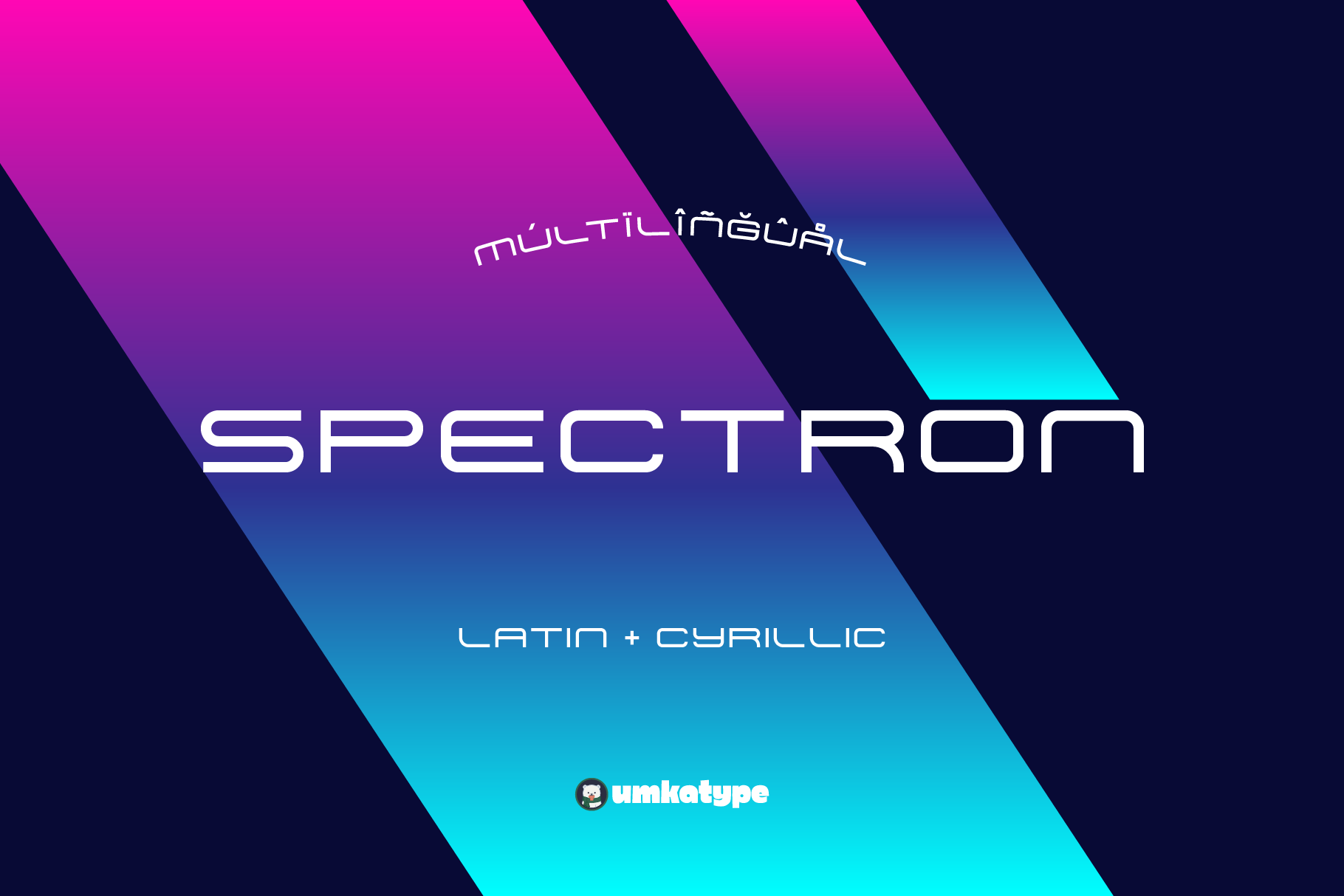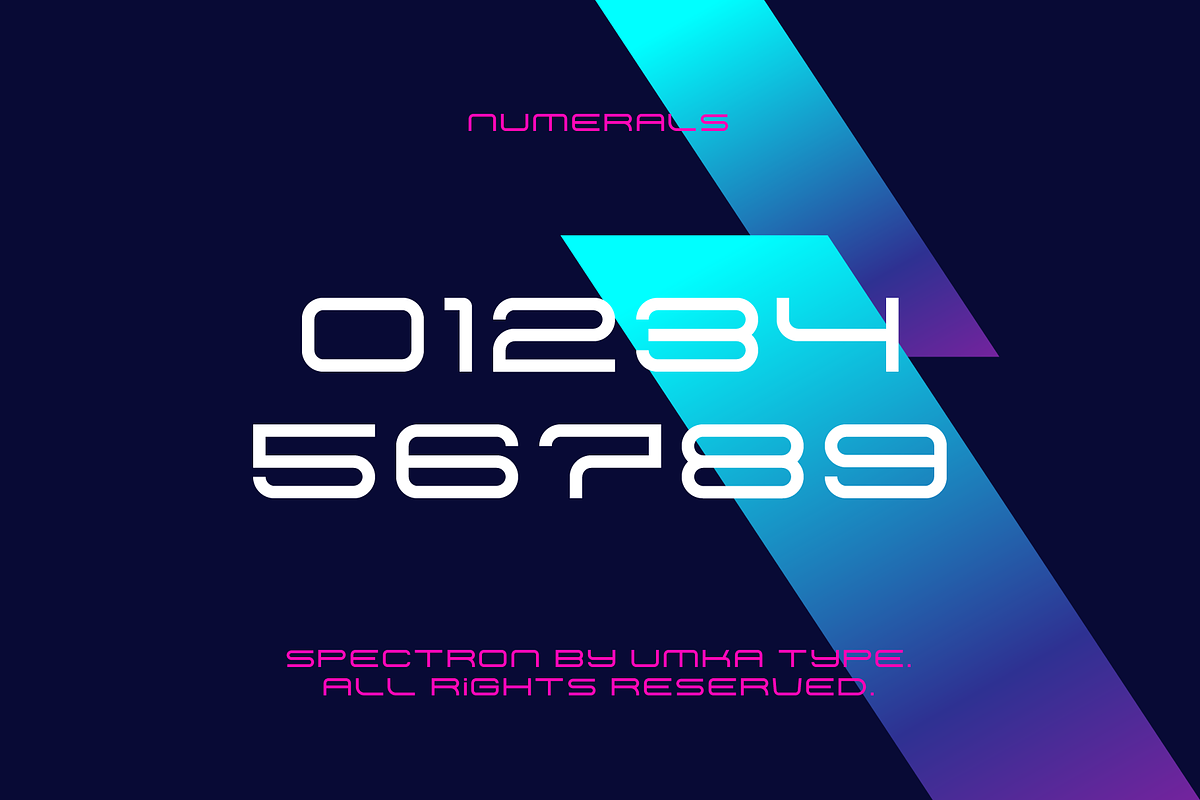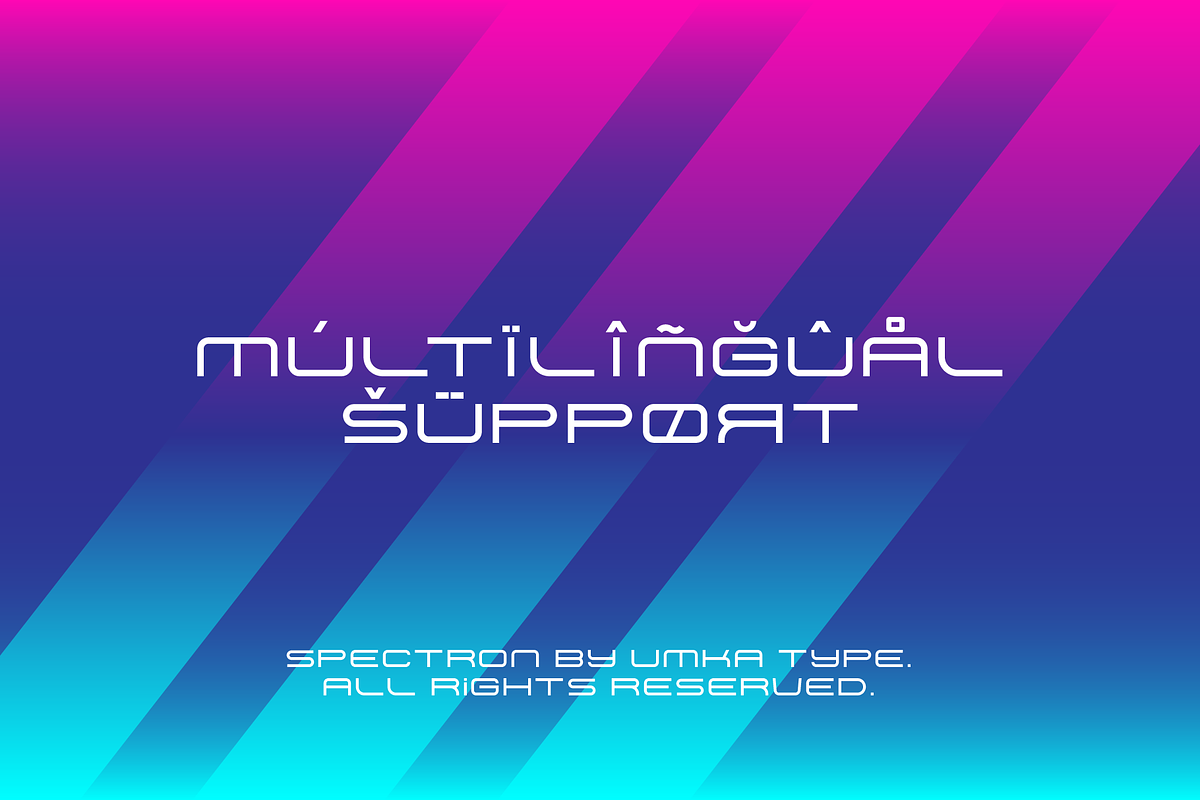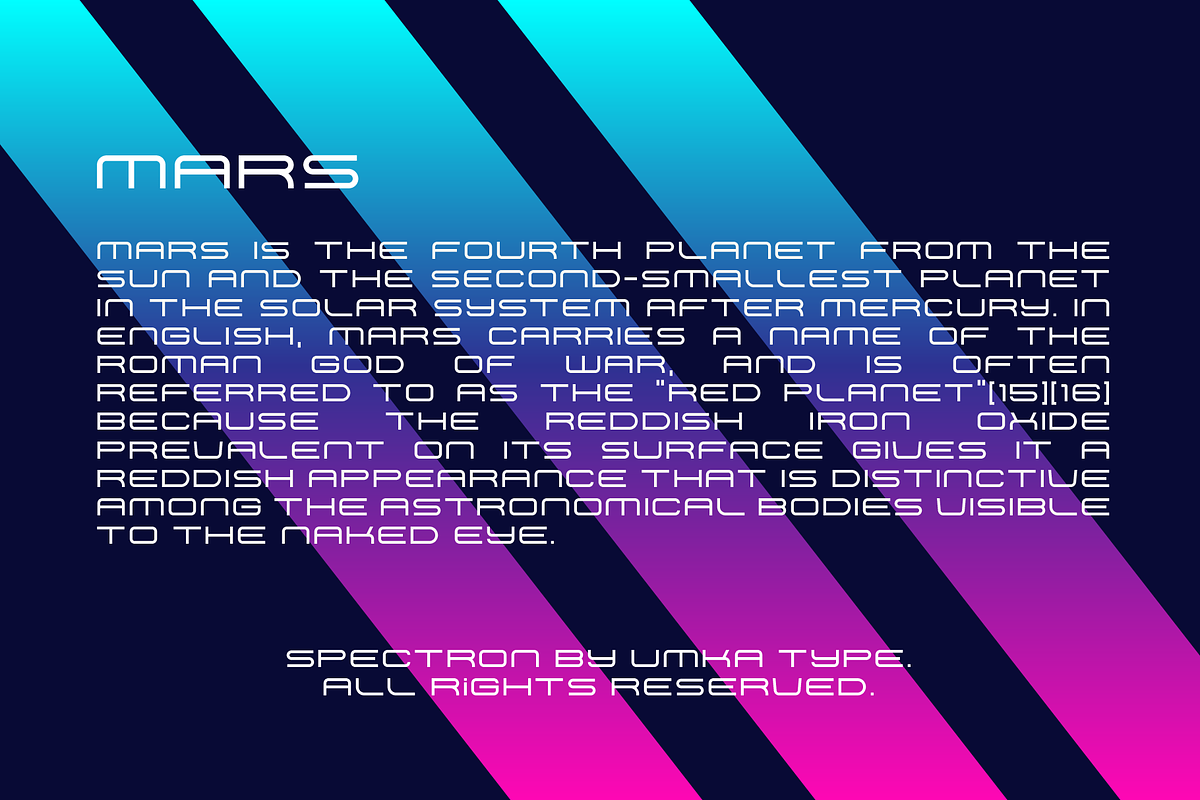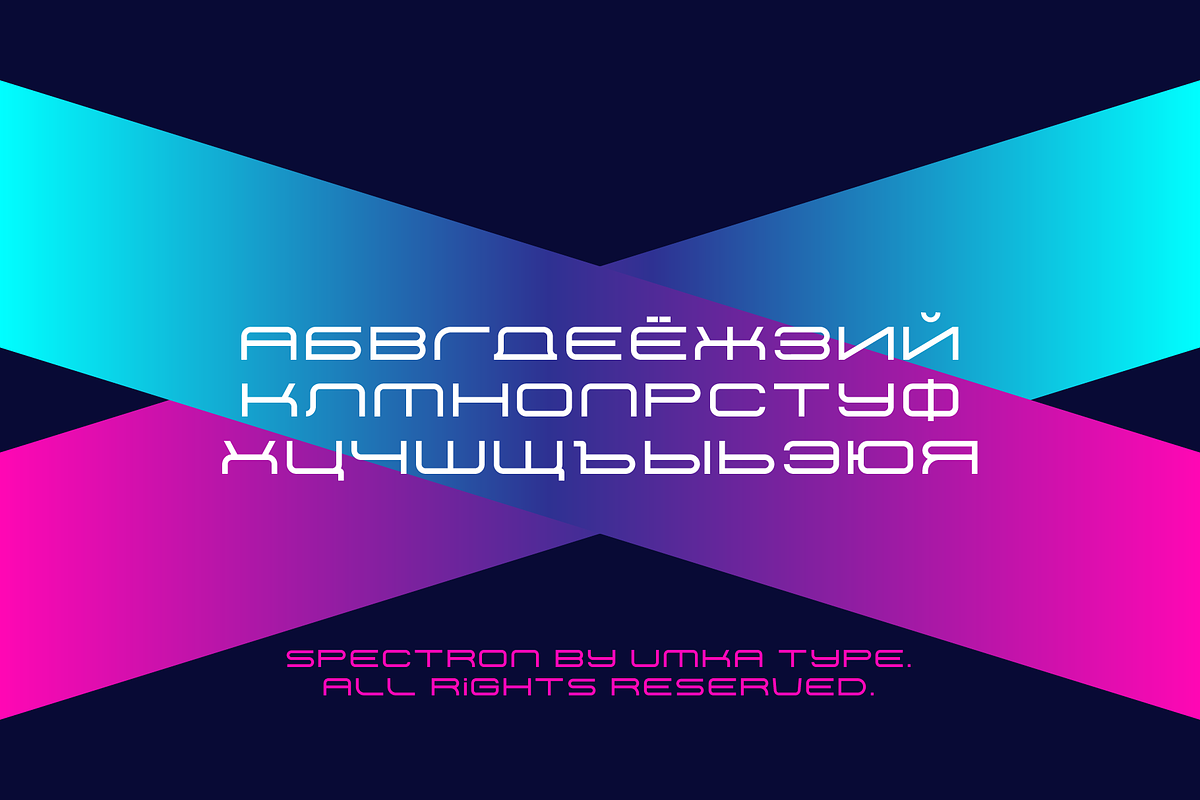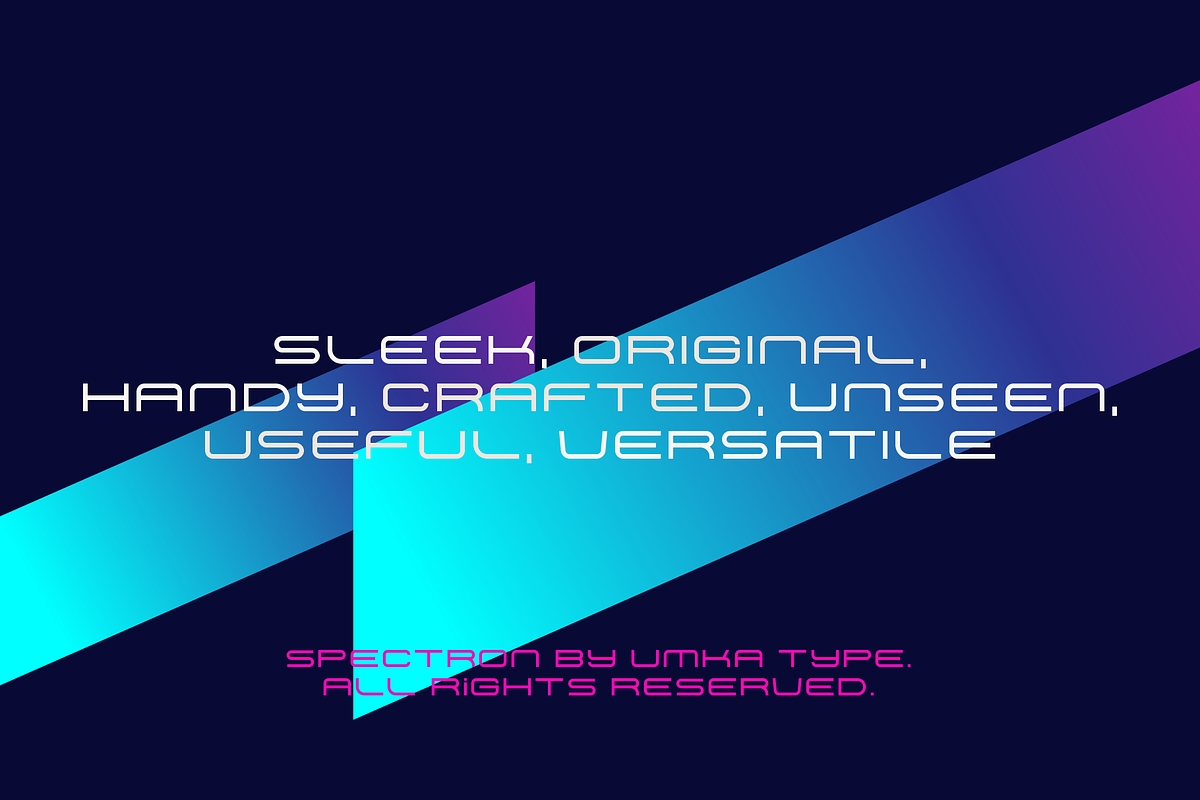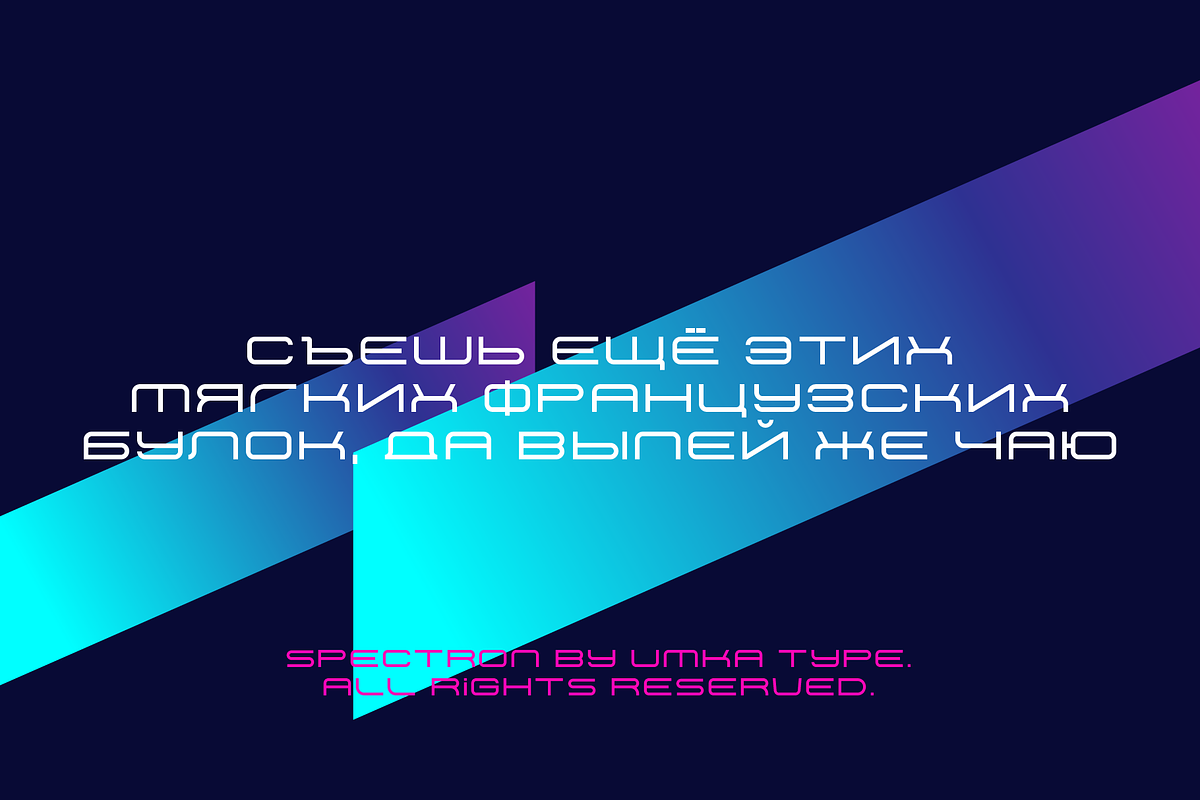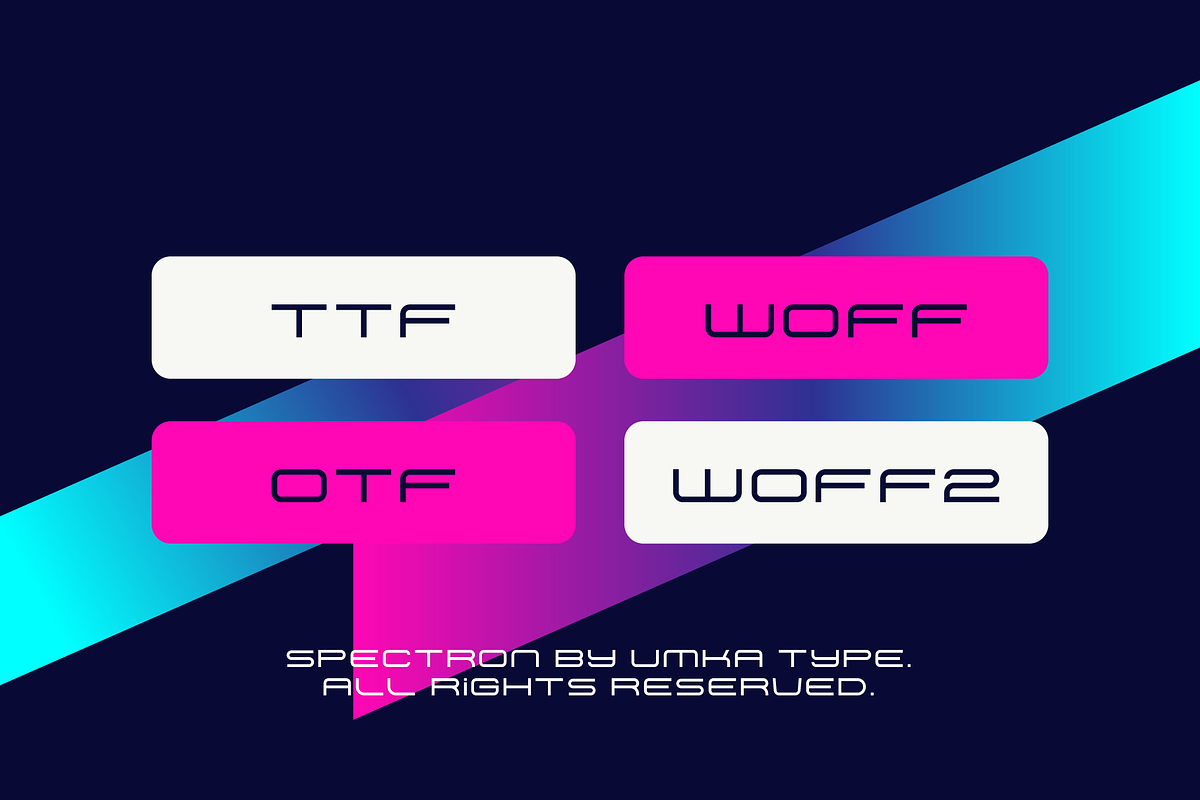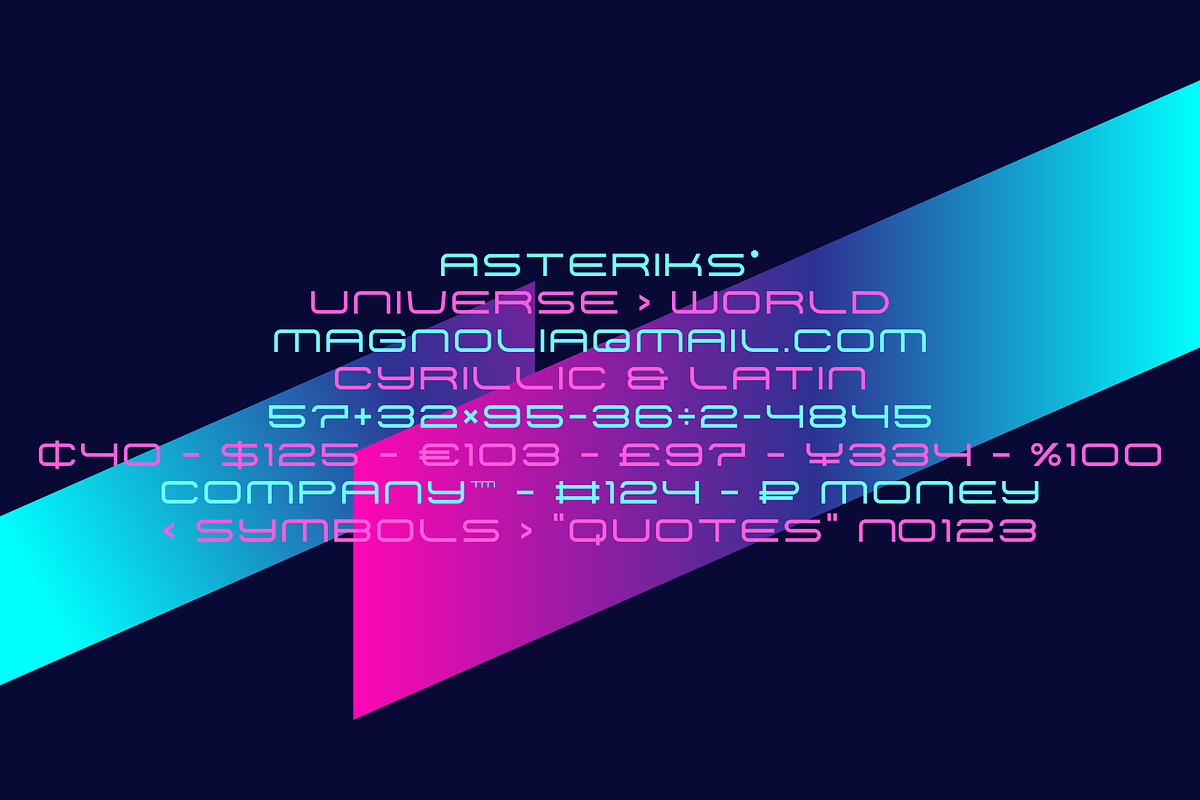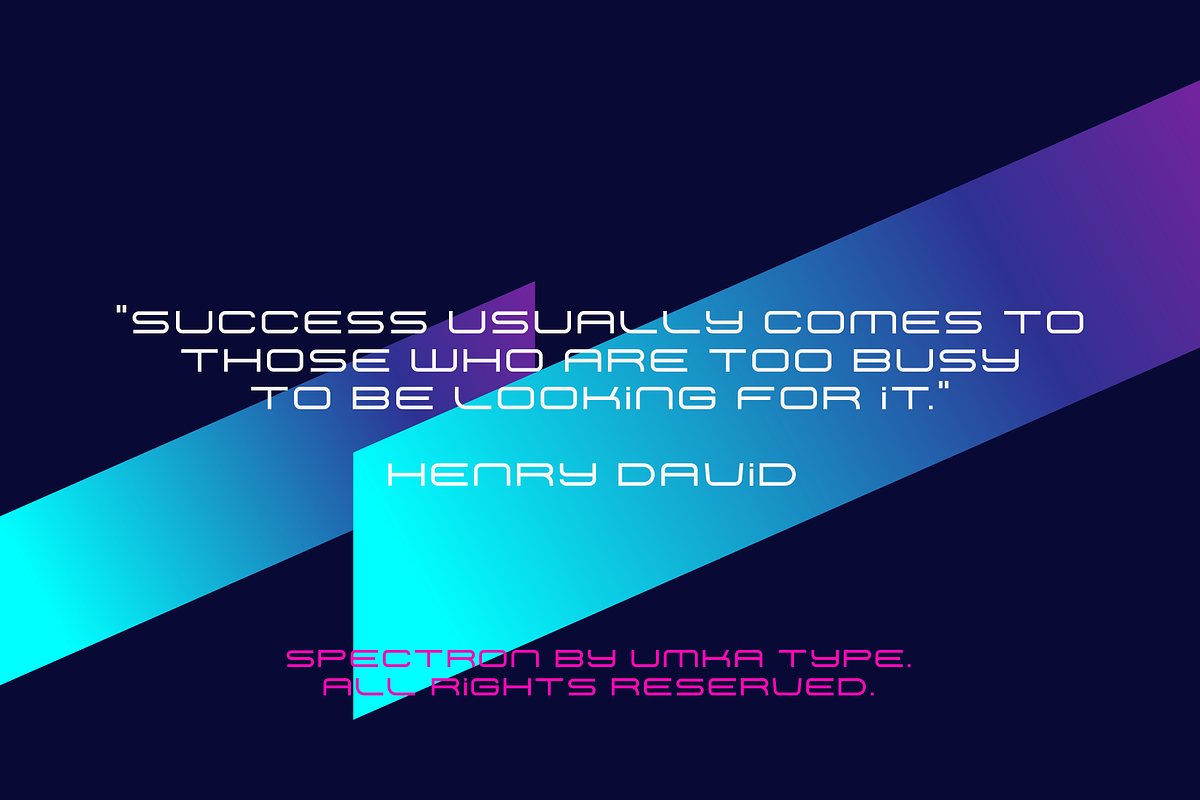
Spectron Display Font
Spectron - A Display Font
- Spectron is a carefully crafted font.
- Multilingual: It has Extended Latin and Extended Cyrillic letters.
Spectron created for games, web design, branding and social media works.
Support for 91 Languages:
Belarusian, Russian, Afrikaans, Albanian, Asu, Basque, Bemba, Bena, Breton, Catalan, Chiga, Colognian, Cornish, Croatian, Czech, Danish, Dutch, Embu, English, Esperanto, Estonian, Faroese, Filipino, Finnish, French, Friulian, Galician, German, Gusii, Hungarian, Indonesian, Irish, Italian, Kabuverdianu, Kalenjin, Kamba, Kikuyu, Kinyarwanda, Latvian, Lithuanian, Lower Sorbian, Luo, Luxembourgish, Luyia, Machame, Makhuwa-Meetto, Makonde, Malagasy, Maltese, Manx, Meru, Morisyen, North Ndebele, Norwegian Bokmål, Norwegian Nynorsk, Nyankole, Oromo, Polish, Portuguese, Quechua, Romanian, Romansh, Rombo, Rundi, Rwa, Samburu, Sango, Sangu, Scottish Gaelic, Sena, Serbian, Shambala, Shona, Slovak, Soga, Somali, Spanish, Swahili, Swedish, Swiss German, Taita, Teso, Turkish, Upper Sorbian, Uzbek (Latin), Volapük, Vunjo, Walser, Welsh, Western Frisian, Zulu